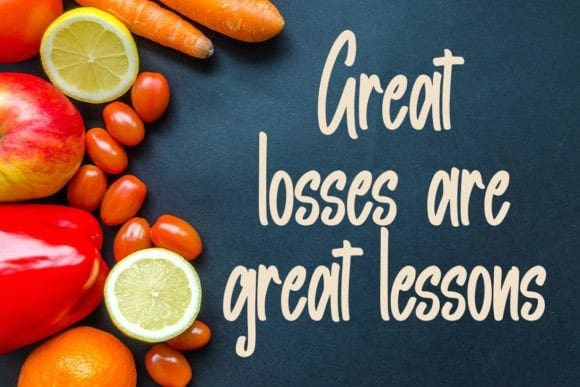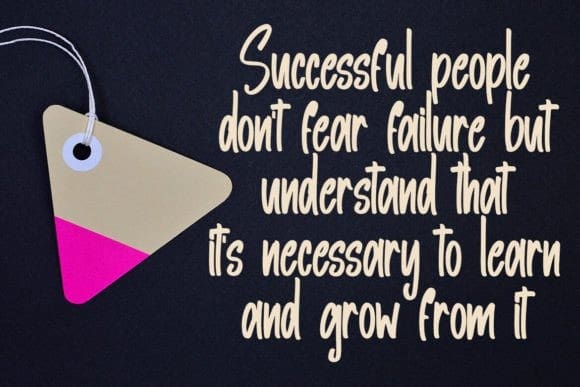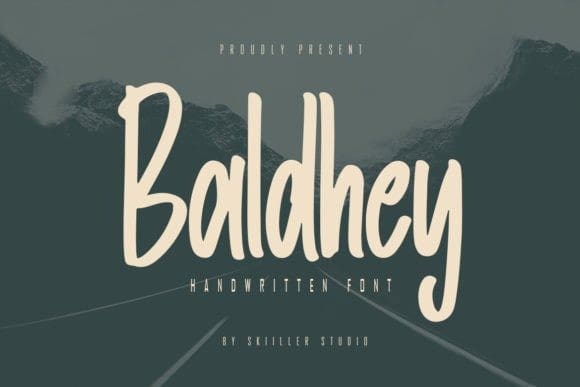
Baldhey Font
Baldhey Font – Beauty Script Equipped with uppercase, lowercase, numbers, punctuation and many different variations on each character. Perfect for use on Logos, Letterheads, Posters, Clothing Designs, Labels, Quotes and more